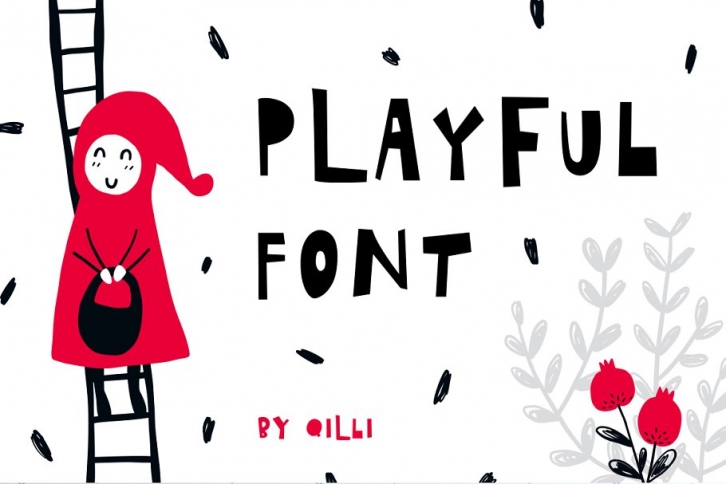
♥ Playful - Display typeface! Font for your creative projects! ♥
This script is perfect for cards, prints, logos, invitations, arrange illustration and decoration. Good for children and header. It has upper and lower case letters, numbers, special characters, accents.